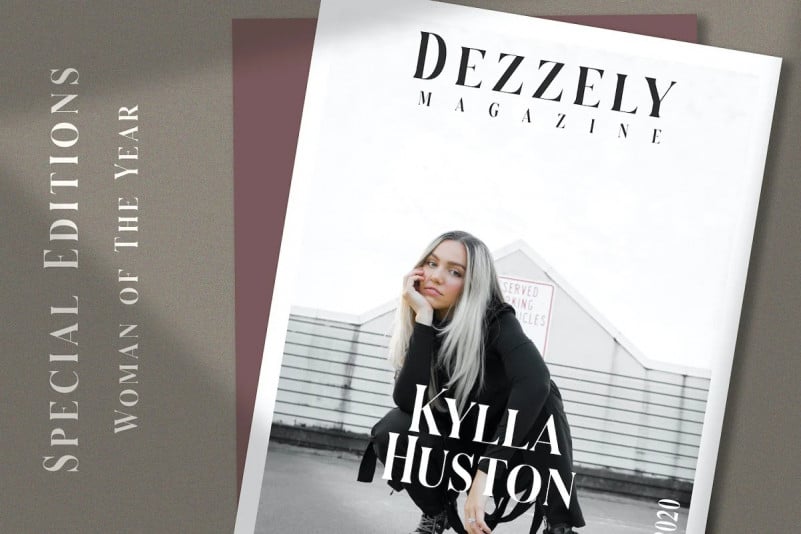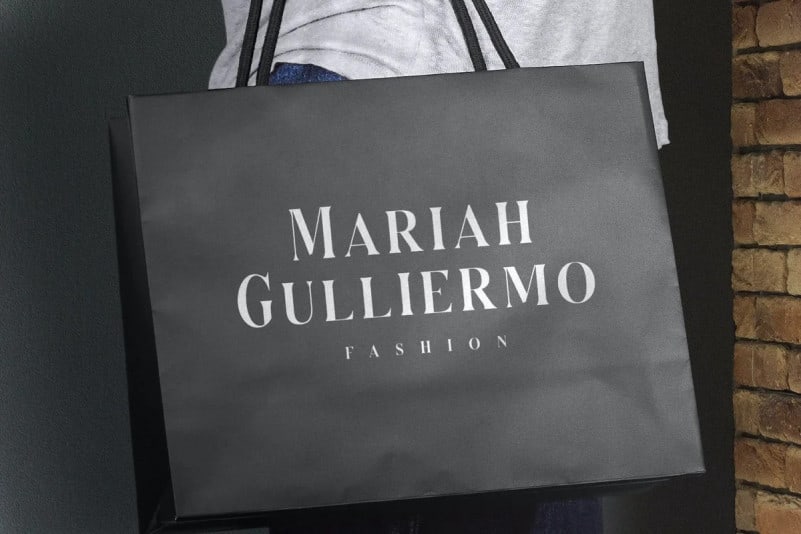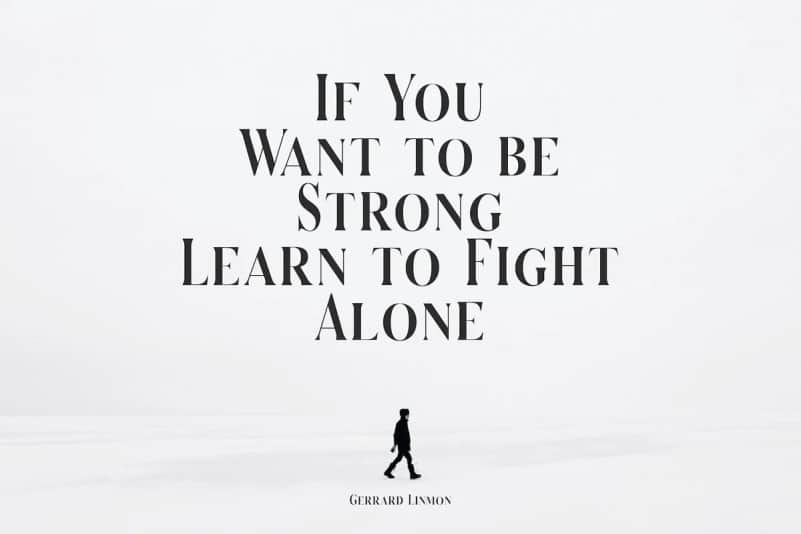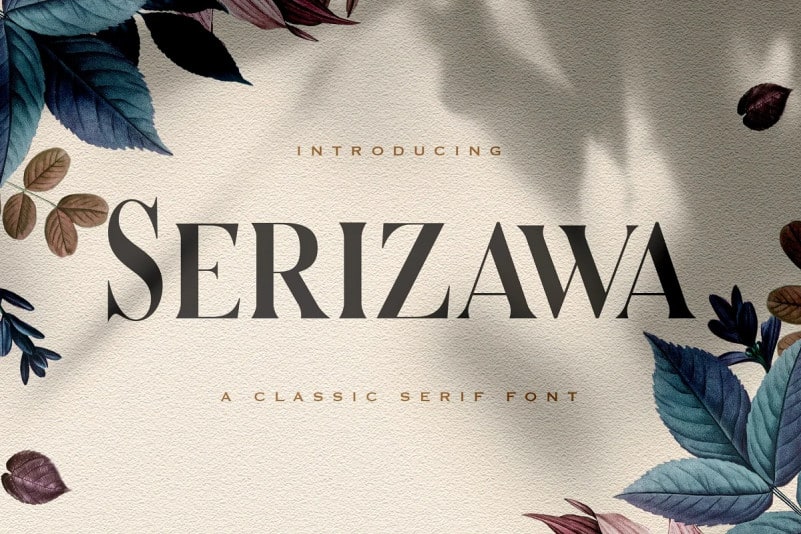
Serizawa Serif Font is an elegant display serif with high contrast. Designed to be fit on a vintage-themed design project or the modern one. Serizawa is an authentic and neat font manufactured by StringLabs. It can easily be matched to an incredibly large set of projects, so add it to your creative ideas and notice how it makes them stand out!